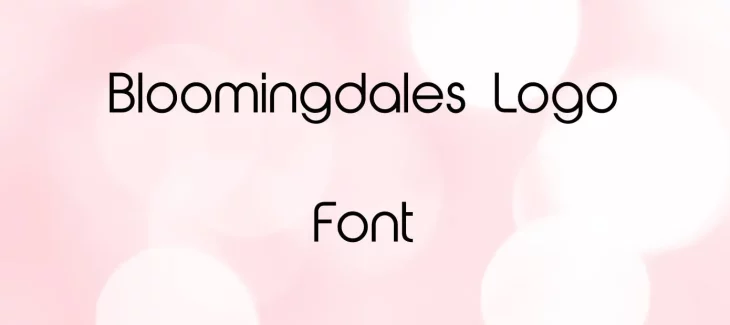
Bloomingdales Logo Font is a sans-serif typeface that was designed in the early 1990s by Spanish graphic designer Mr. Kai Buskirk. While this font style was initially only available in a single weight, maybe it expanded on additional weights.
The font has become increasingly popular in recent years, particularly among designers who appreciate its clean lines and unique character.
The glyph of this font has been hand-crafted with great care and attention to detail. The pairing and similar font to this typeface are ambigram font which has more than 300 glyphs, upper and lowercase, and a wide range of language supports.
Who Used Bloomingdales Logo Font?
One of the most notable features of this font is its high level of readability. This is due in part to the fact that the font was designed specifically for use in small sizes. The high readability of this font makes it an ideal choice for use in body text, as well as in headlines and other short pieces of text.
The typeface has a matching personality with other typefaces and can provide a cool performance with the pairing of jaapokki font. This font is mainly seen on book covers, titles, and in their body text also. Many designers still use it for giving their books a classic yet modern look.
The Font is an excellent choice for designers who are looking for a classic, elegant typeface that will never go out of style. This font style is also very good for both copy-paste and pairing functions.
Bloomingdales Logo Font Family Appearance
Who designed the Bloomingdales logo?
The Font is highly readable due to its simple design and large x-height. This typeface was designed by a very well-famed designer named Mr. Kai Buskirk.
Yes, The Font is often used in logos and other branding materials. The font’s clean lines and classic appearance make it an excellent choice for use in branding.
What is Bloomingdales logo Font used for?
The Font is often used for body text, headlines, and logos. The font’s clean lines and high readability make it an excellent choice for a wide range of design applications.